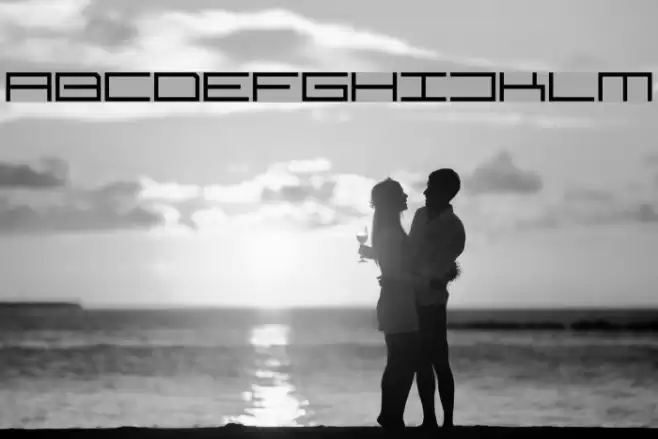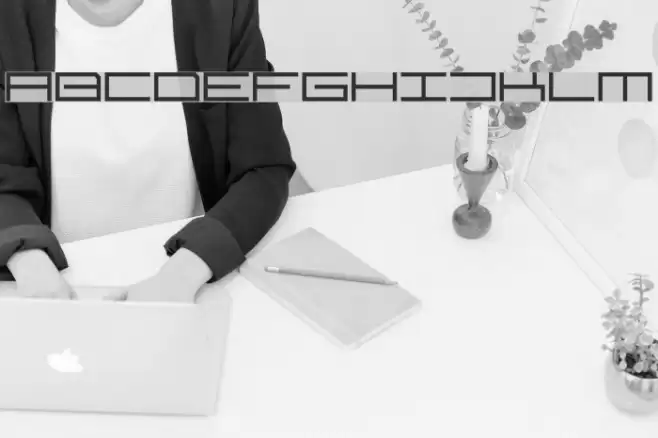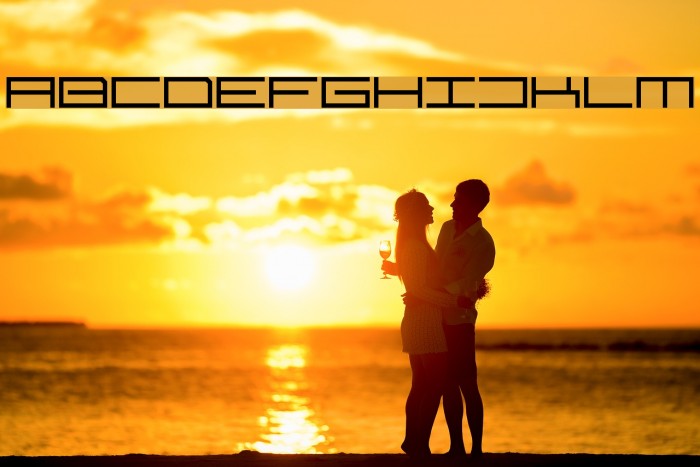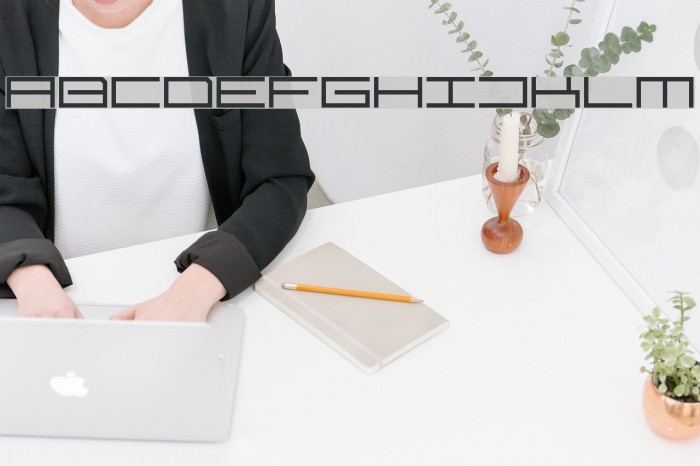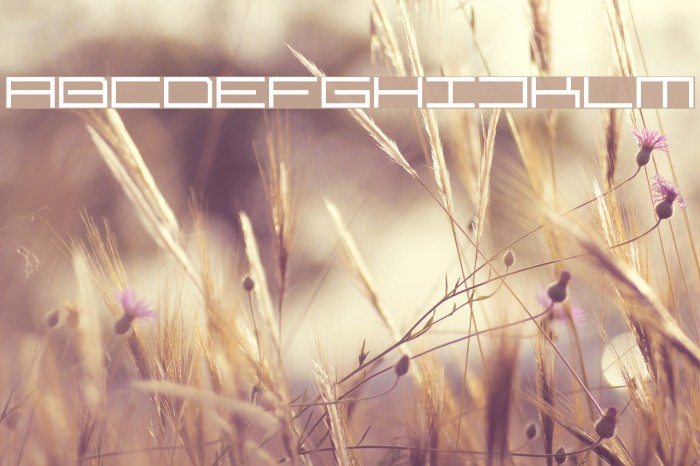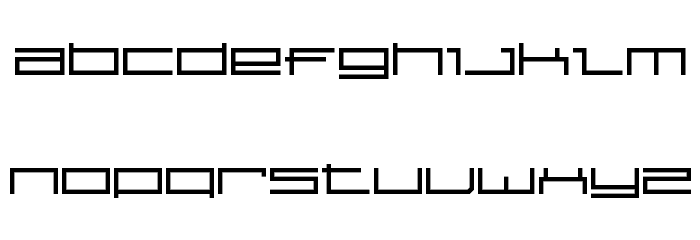
Techno 'Til Dawn Font
Techno 'Til Dawn Description
This font features a futuristic and geometric design, characterized by its sharp angles and clean lines. The uppercase and lowercase letters maintain a consistent height, creating a uniform appearance. The numerals and special characters follow the same angular style, enhancing the overall cohesive look. The font's structure is reminiscent of digital or technological themes, making it suitable for modern and tech-oriented projects. Its distinct style ensures readability while adding a unique flair to any design.
A futuristic, geometric font with sharp angles and clean lines from Uncategorized fonts.